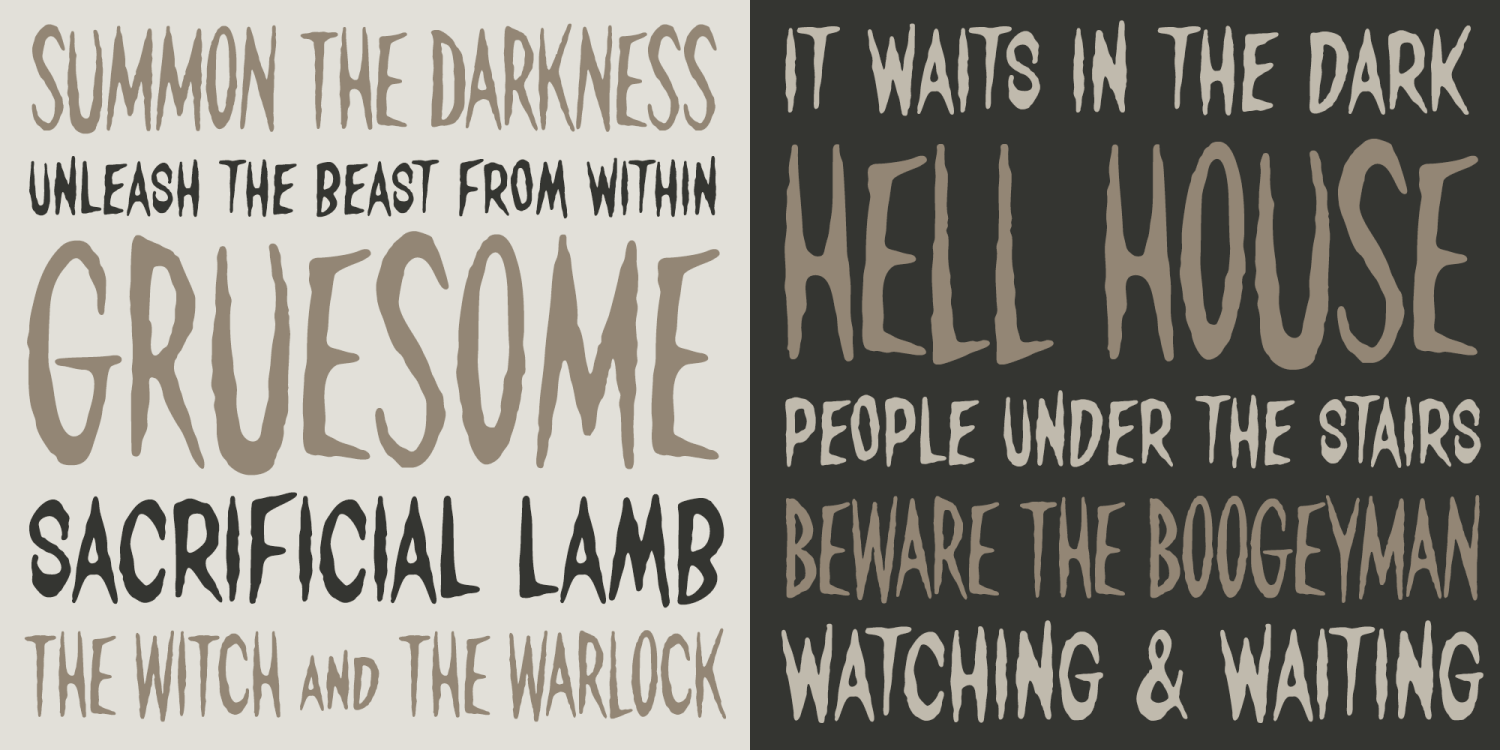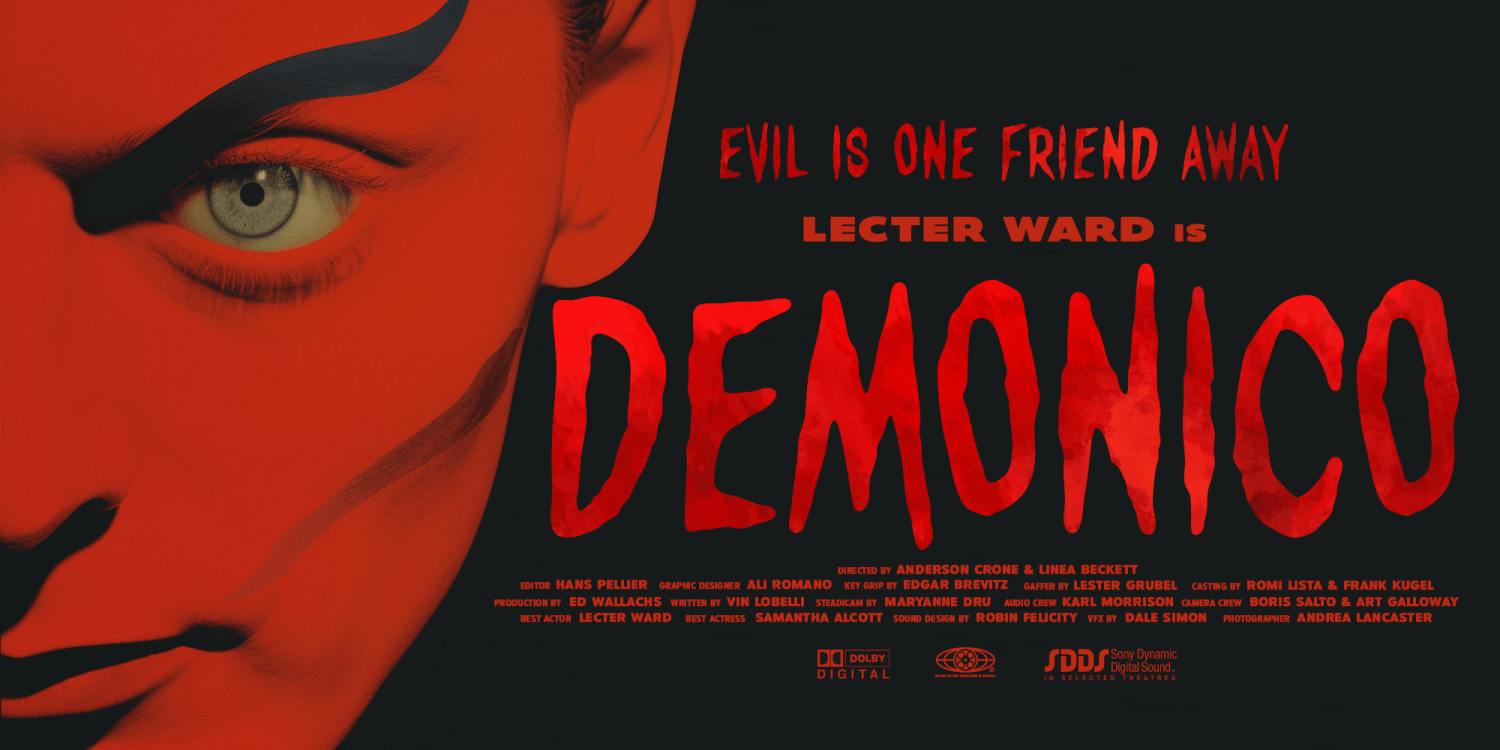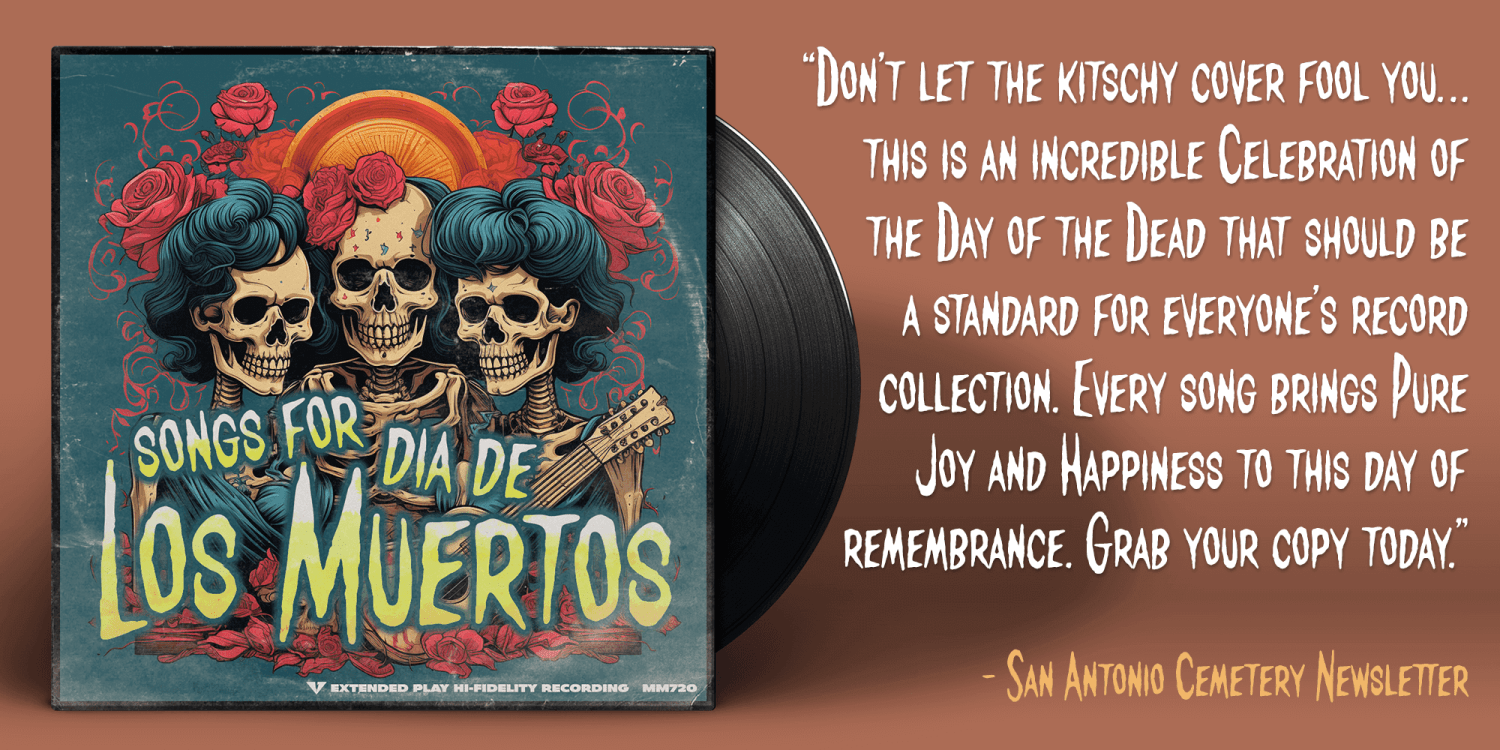
About Terrified AOE
Terrified AOE was inspired by vintage horror movie poster titling from the 1960's. It is a Capitals and smallcaps typeface, that really feels like a mix of three typefaces in one. While the Capitals and Smallcaps typesetting works to the effect of…